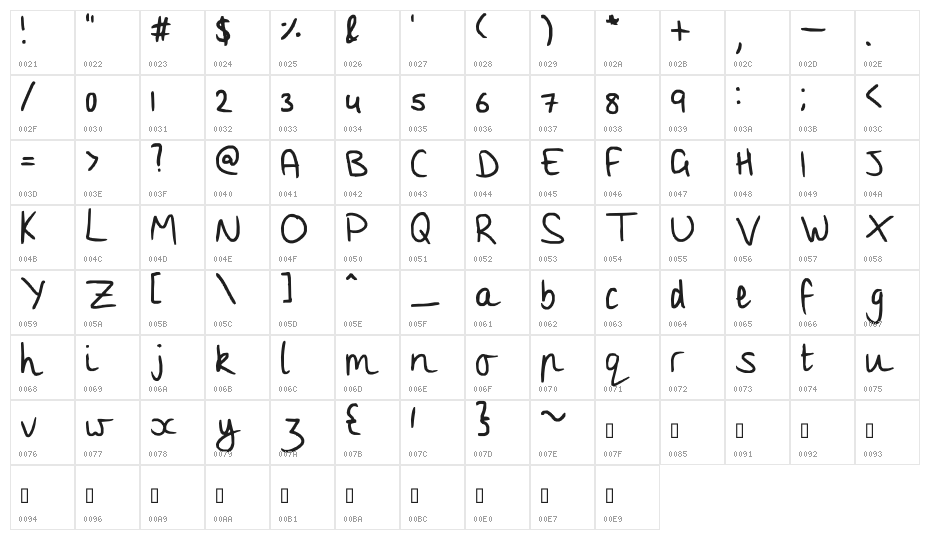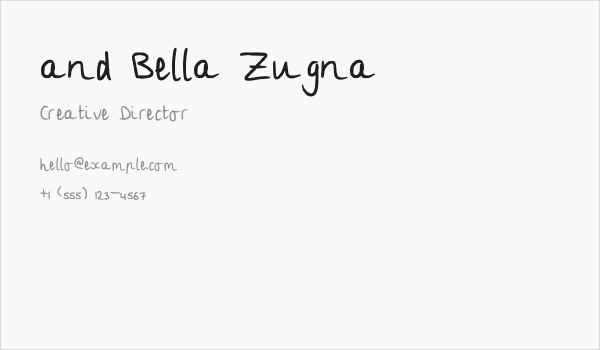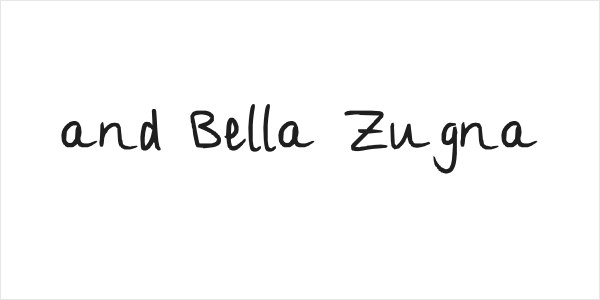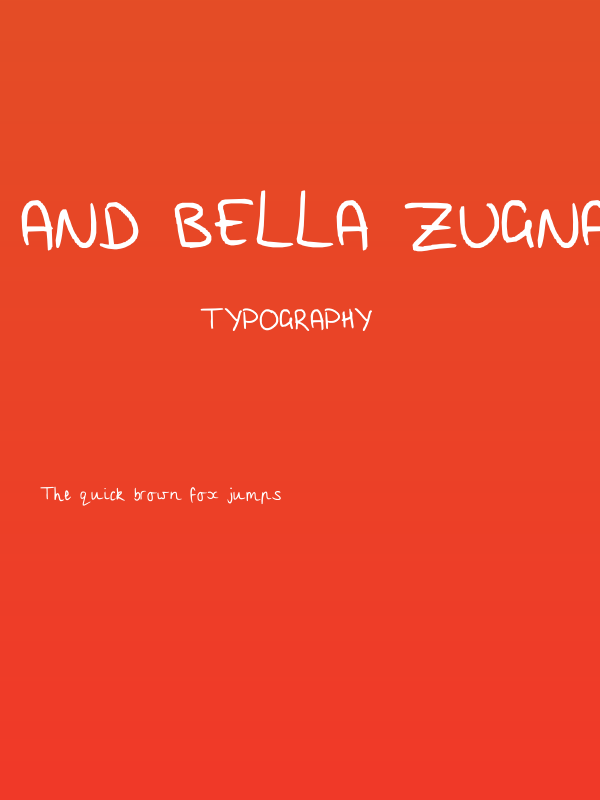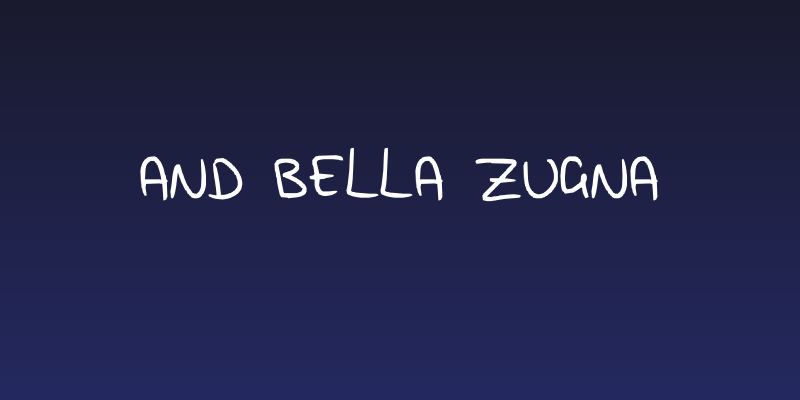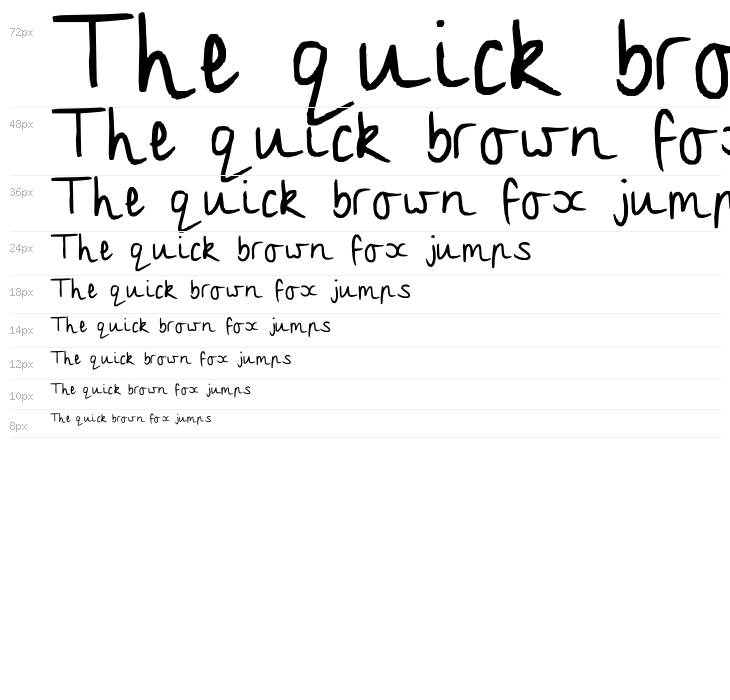
and Bella Zugna Font
and Bella Zugna Description
This font features a playful and casual handwritten style, characterized by its smooth, flowing lines and slightly irregular shapes. The letters are bold and have a consistent stroke width, giving them a strong presence while maintaining a friendly and approachable feel. The uppercase and lowercase letters are well-balanced, with a slight slant that adds to the informal aesthetic. The numbers and special characters follow the same style, ensuring a cohesive look across all elements. This font is versatile and can be used in various design projects that require a personal touch.
| Use Case | Logos, Headlines, Informal Text |
| Proposed Projects | Ideal for greeting cards, personal branding, social media graphics, and informal invitations. |